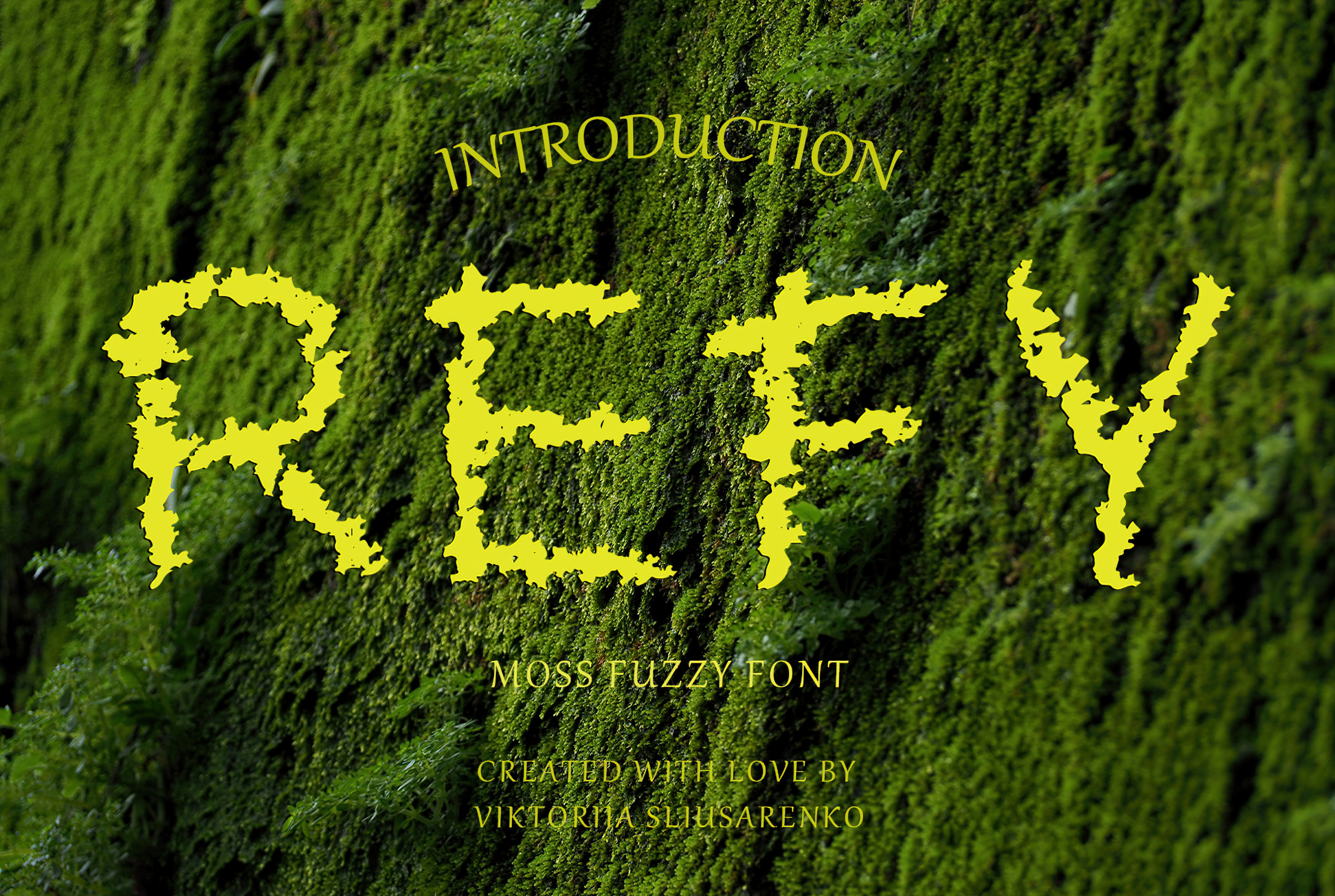
REFY - moss fuzzy font
Introducing Refy: A Captivating Handwritten Font for Nature-inspired Designs.
Refy is a one-of-a-kind handwritten font that effortlessly brings the essence of nature into your creative projects. With its distinct moss-like appearance and delicate fuzziness, this vector font boasts sharp edges that infuse your designs with texture and depth. Its resemblance to forest moss makes Refy an ideal choice for everything from nature-themed artwork to eco-conscious branding.
Whether you're crafting a logo for an outdoor adventure company or developing eye-catching social media graphics for an eco-friendly brand, Refy is guaranteed to infuse your designs with natural beauty and stylish allure.
Discover the enchanting charm of Refy and elevate your designs with its captivating handwritten allure.